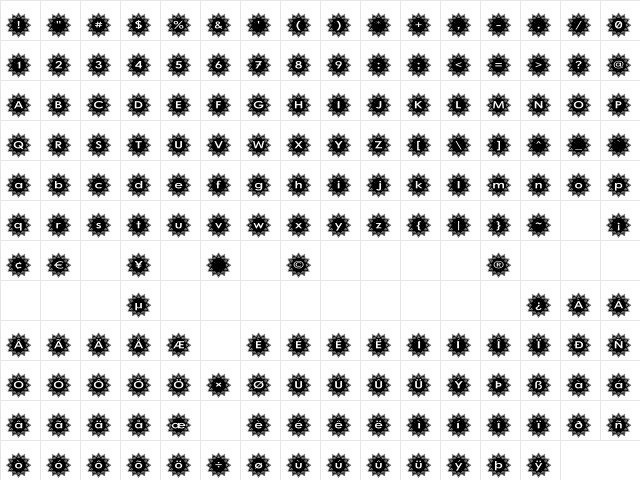
Stargit Regular
Design Context for Stargit Typeface
Stargit is a composed and adaptable typeface that performs quietly and consistently across a wide range of design contexts.